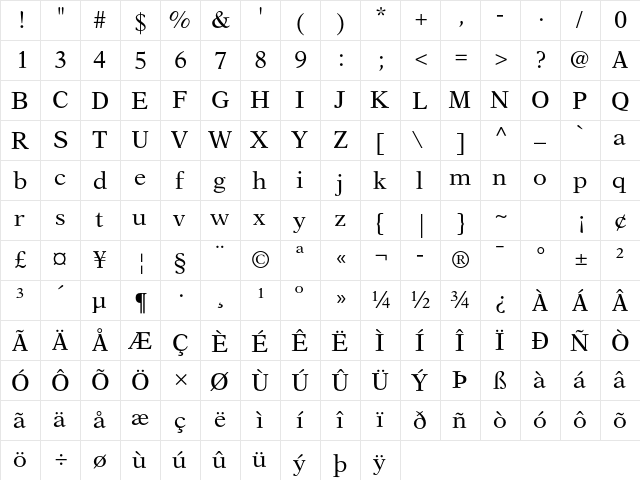
New Aster LT Std Regular
| Designer | Francesco Simoncini |
Design Context for New Aster LT Std Typeface
New Aster LT Std is a composed and adaptable typeface that performs quietly and consistently across a wide range of design contexts. Its slender proportions lend an understated elegance to any composition.